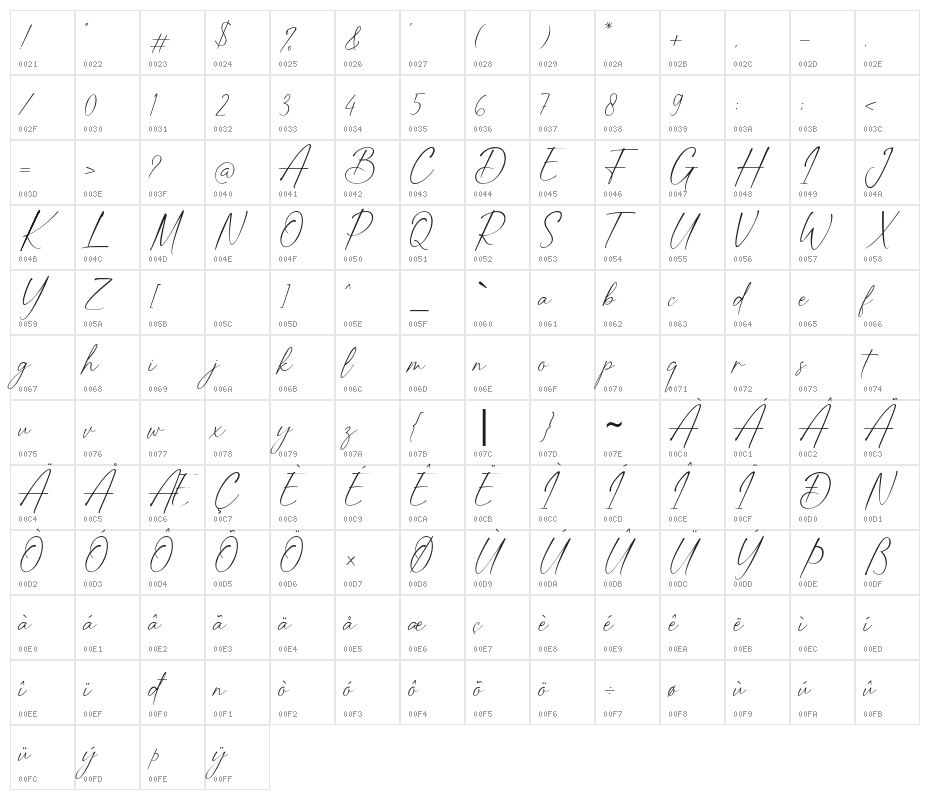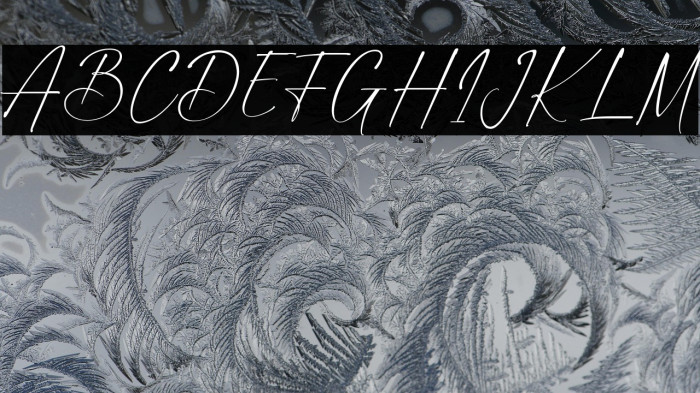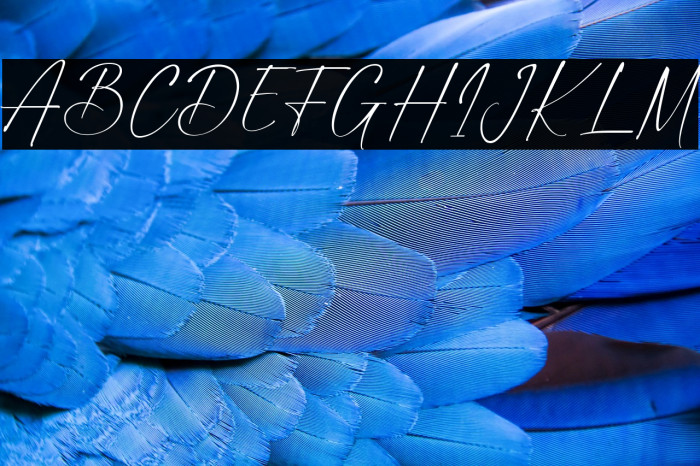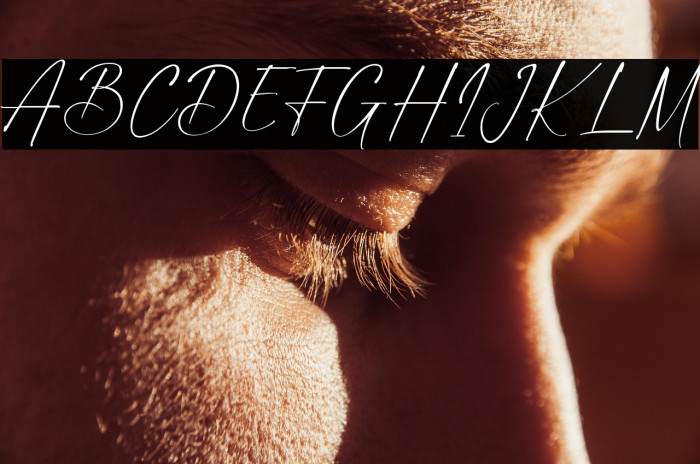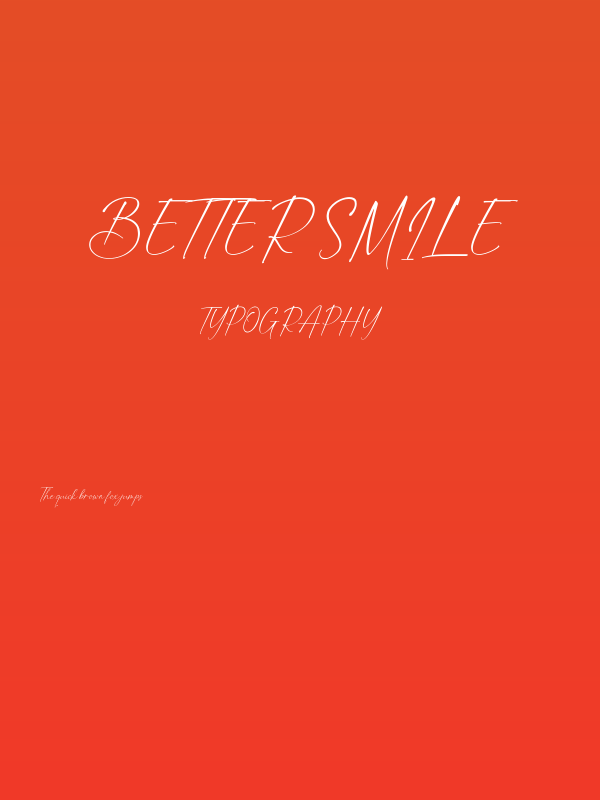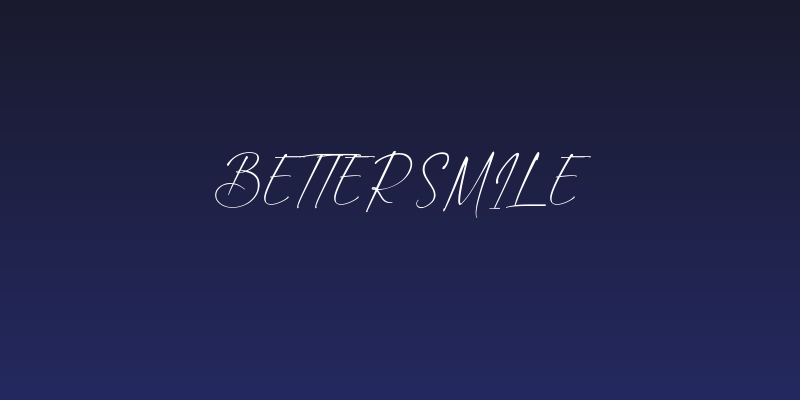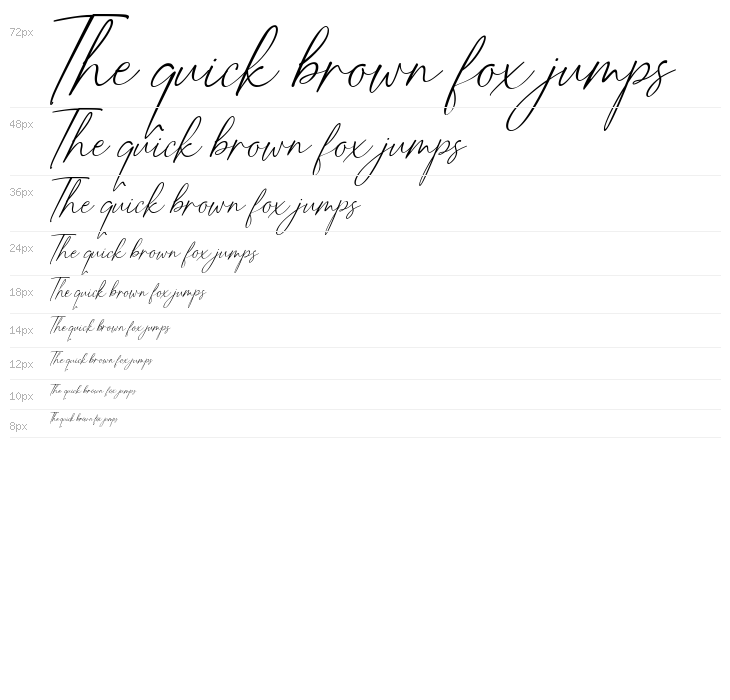
Better Smile Font
Better Smile Description
A flowing, elegant script font with a handwritten style, featuring smooth curves and a natural, personal touch.
| Overall Style | Elegant, Personal |
| Use Case | Logos, Invitations, Personal notes |
| Proposed Projects | Invitations, greeting cards, personal branding. |